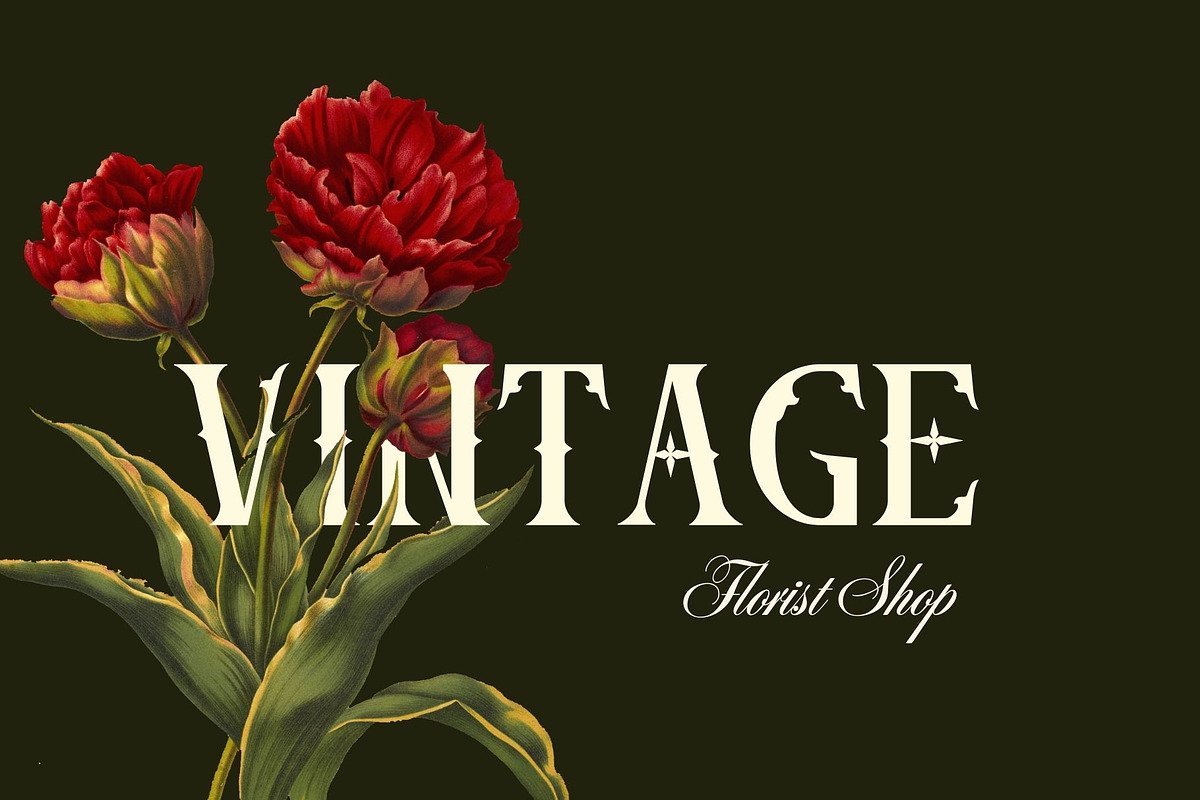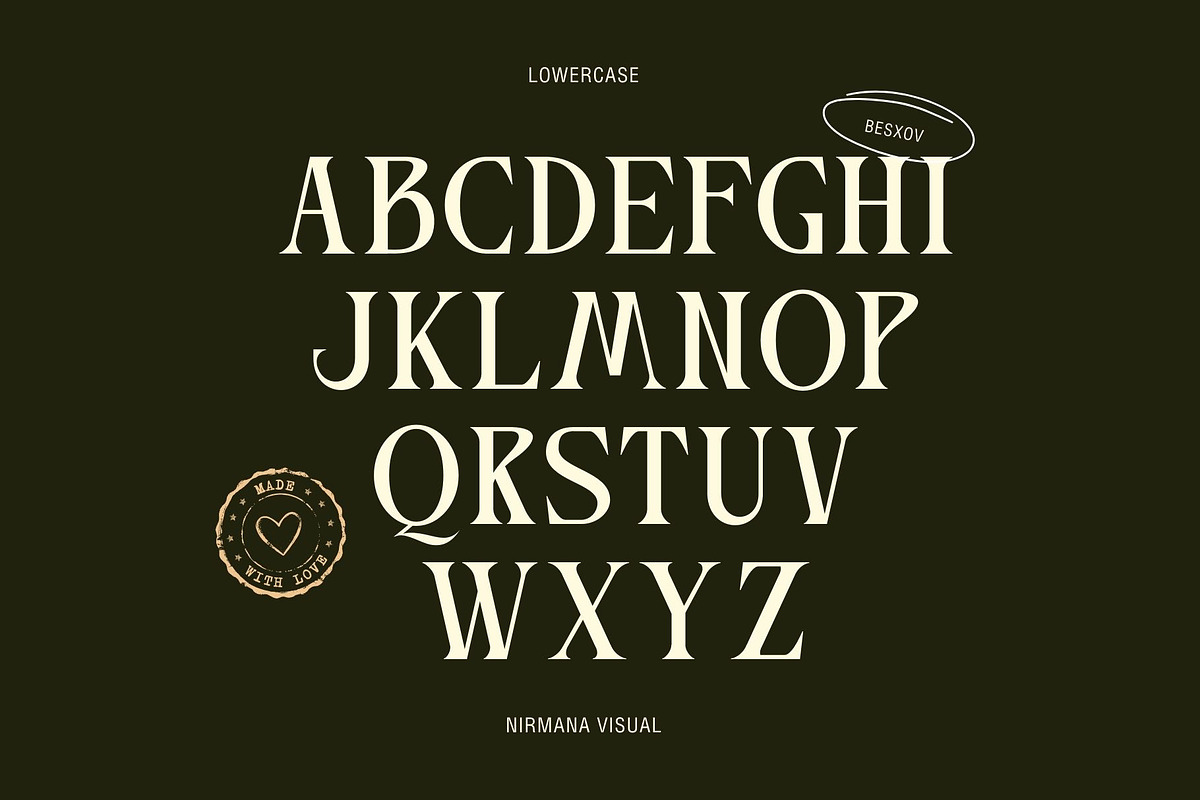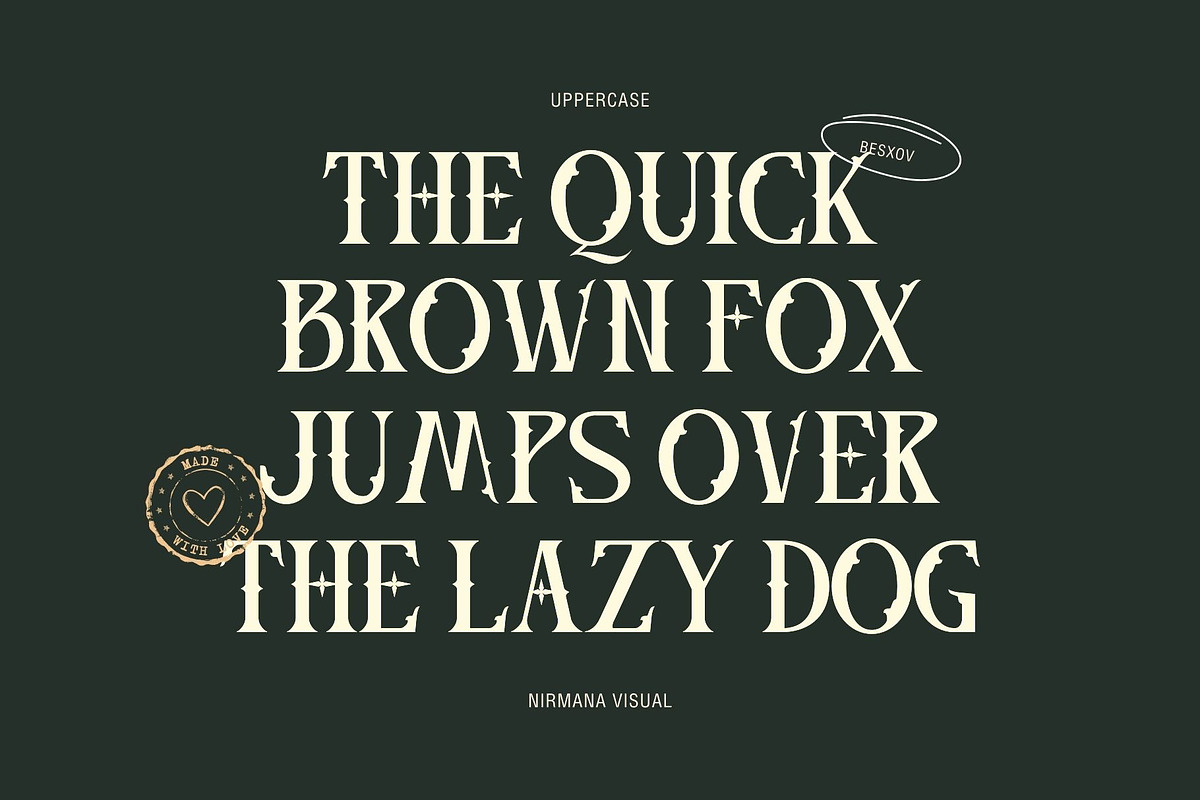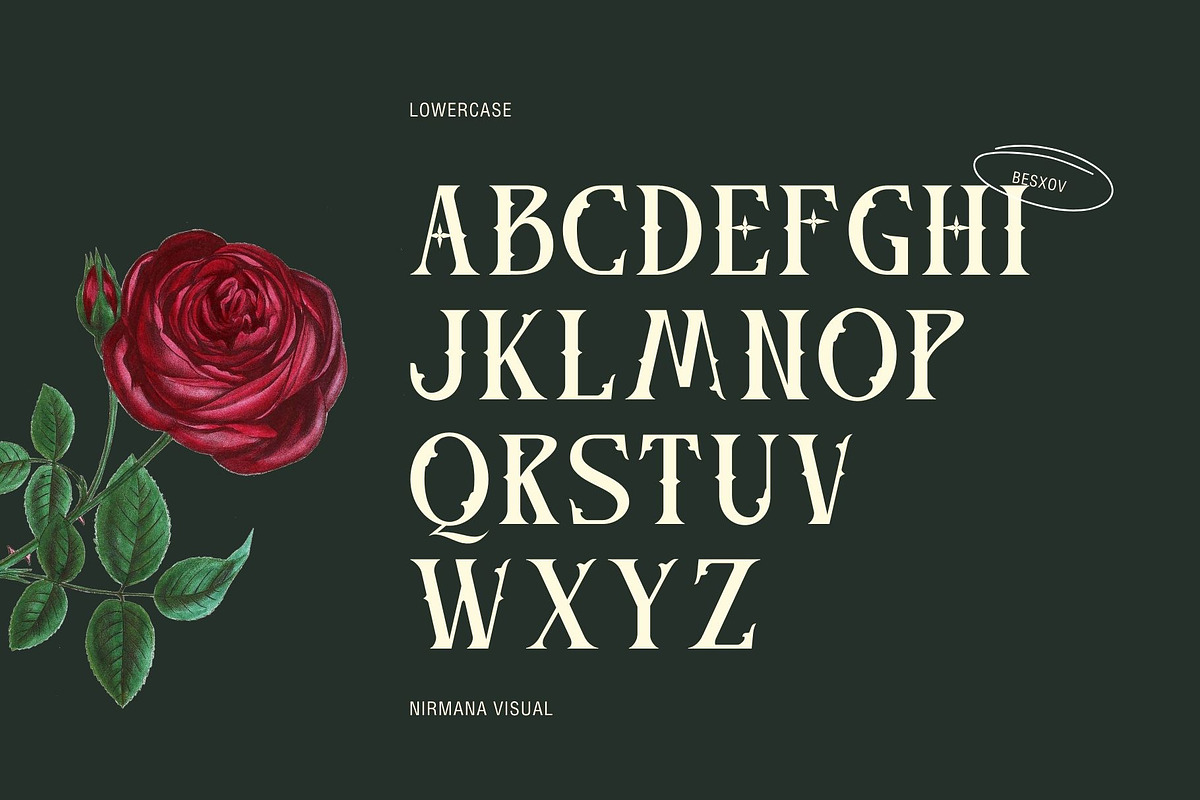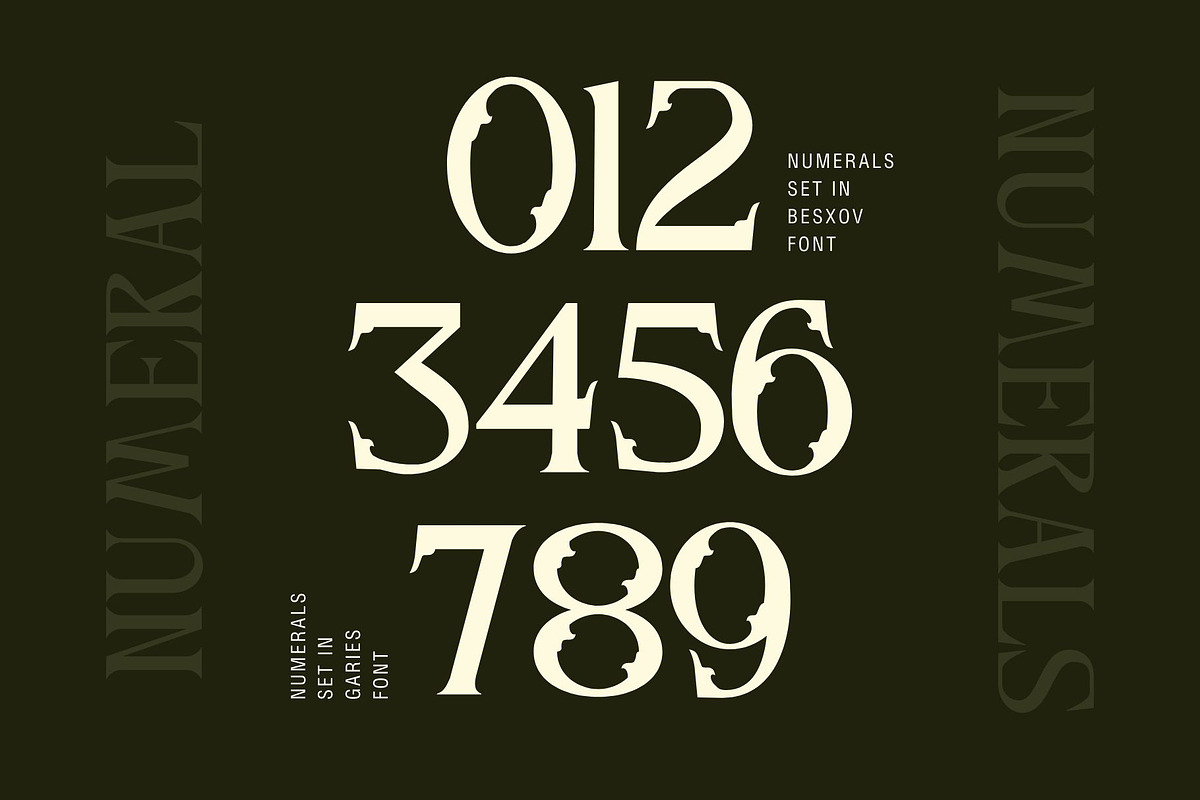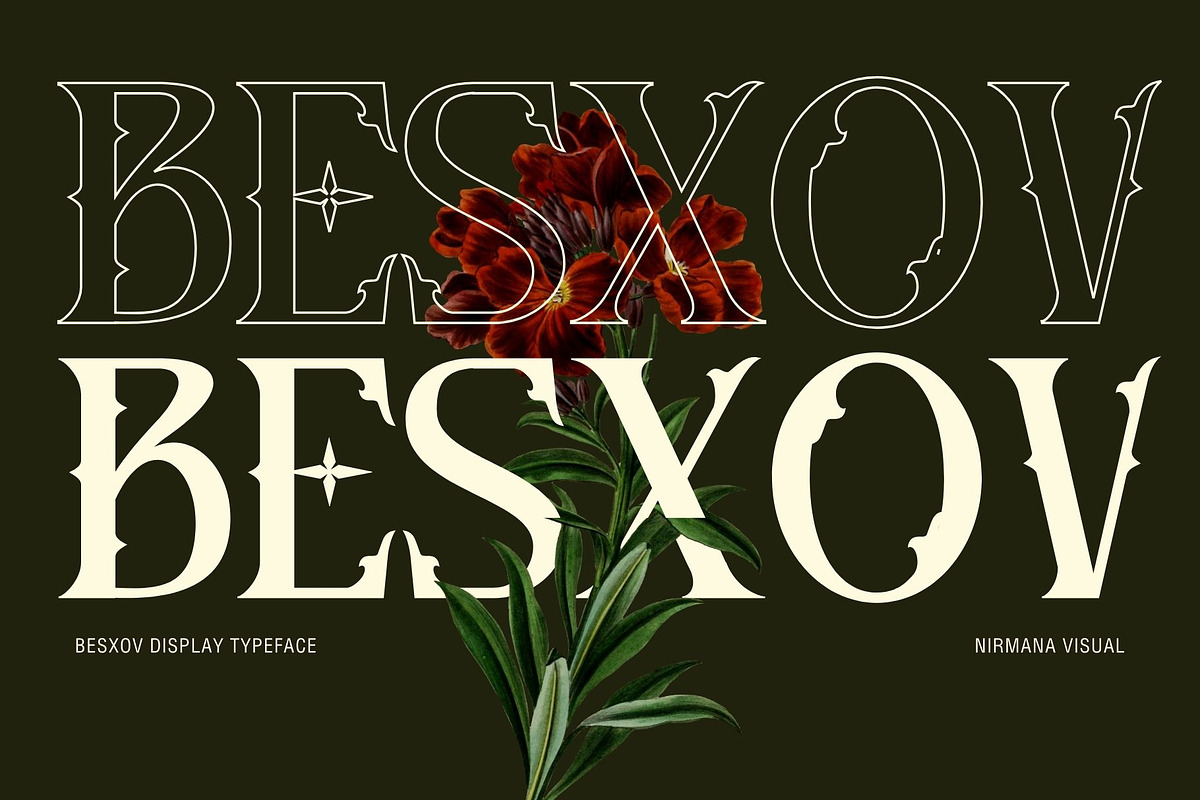
Besxov - Blackletter
Besxov - Blackletter Font
Besxov offers beautiful typographic harmony for a diversity of design projects, including logos & branding, social media posts, advertisements & product designs.